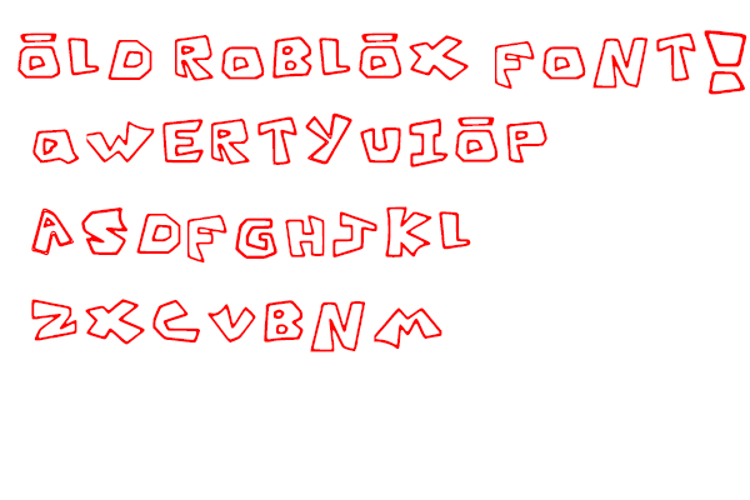
Old Roblox Font
About Old Roblox Font
I cannot believe no one made a font out of this.
Original font sheet:
Uppercase O for the o letter with the line on top.